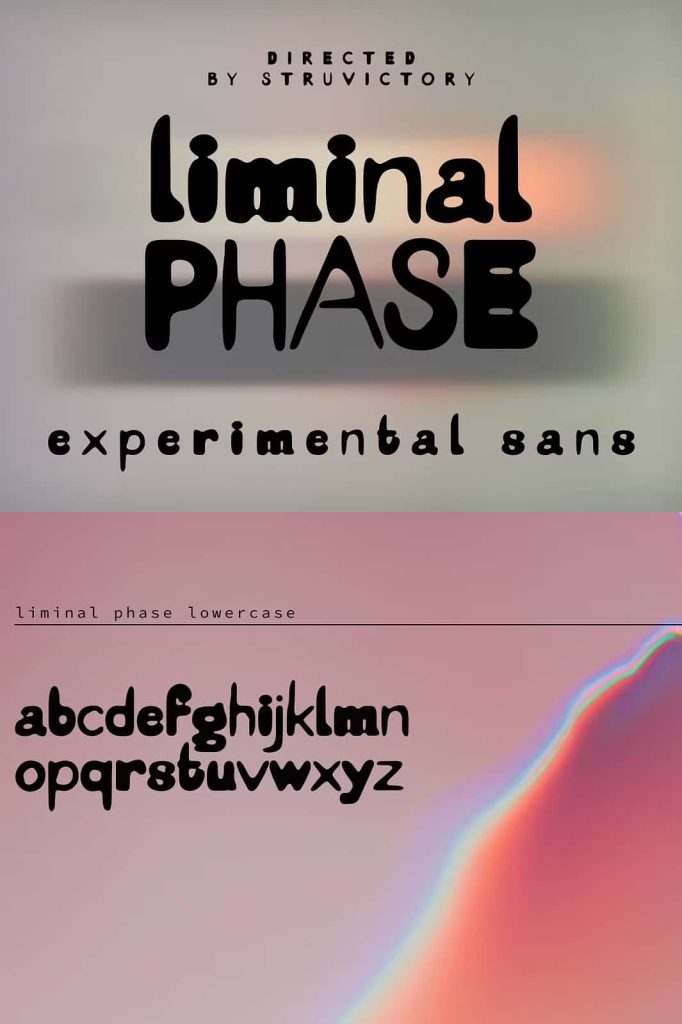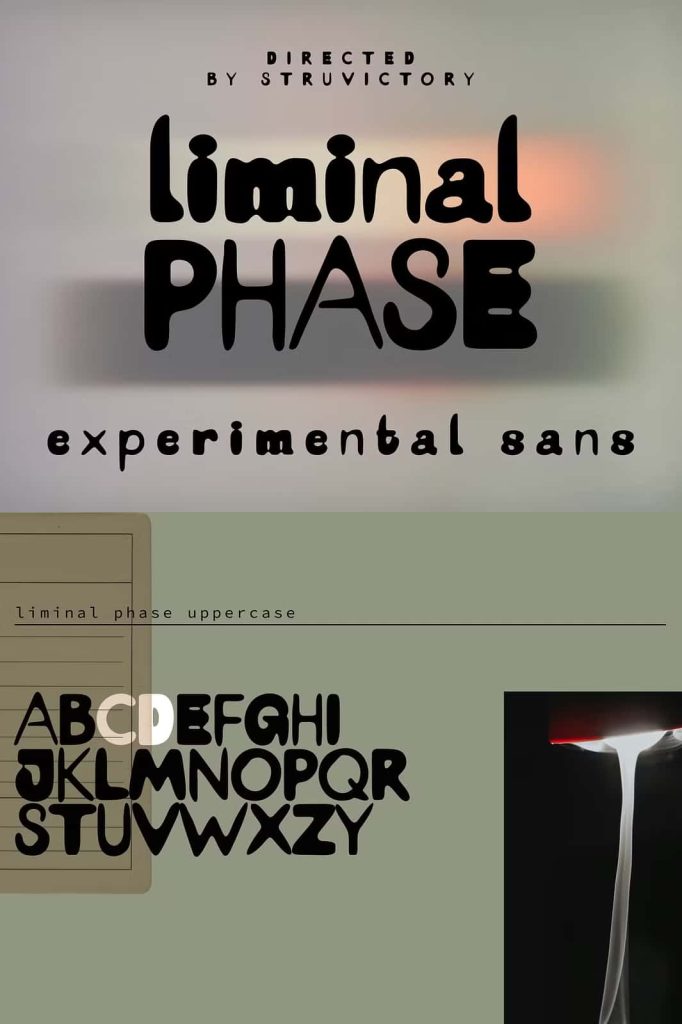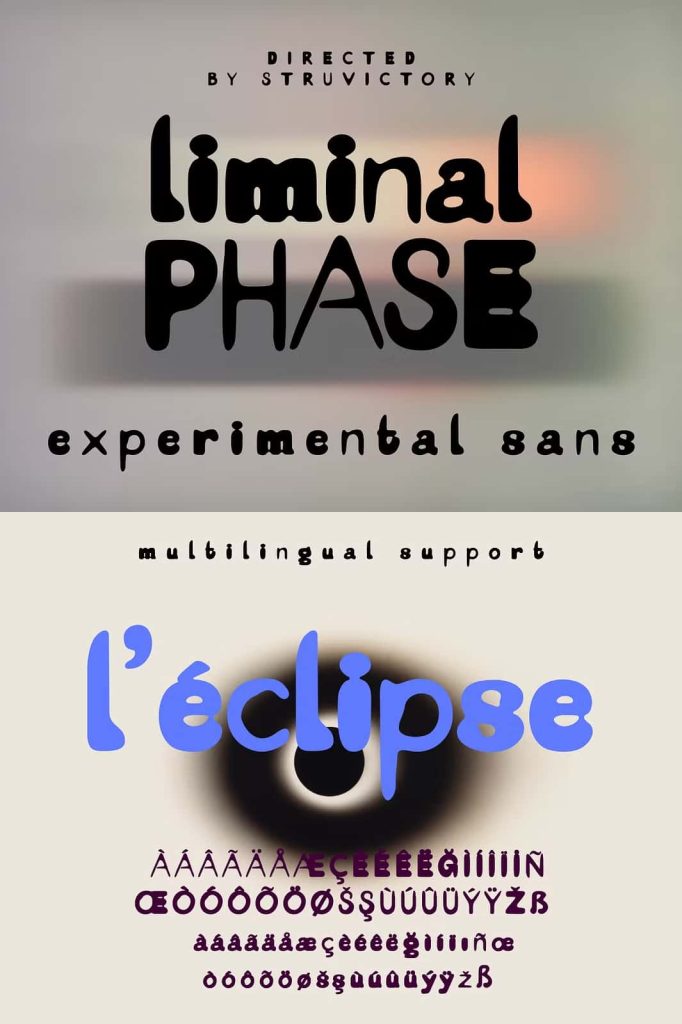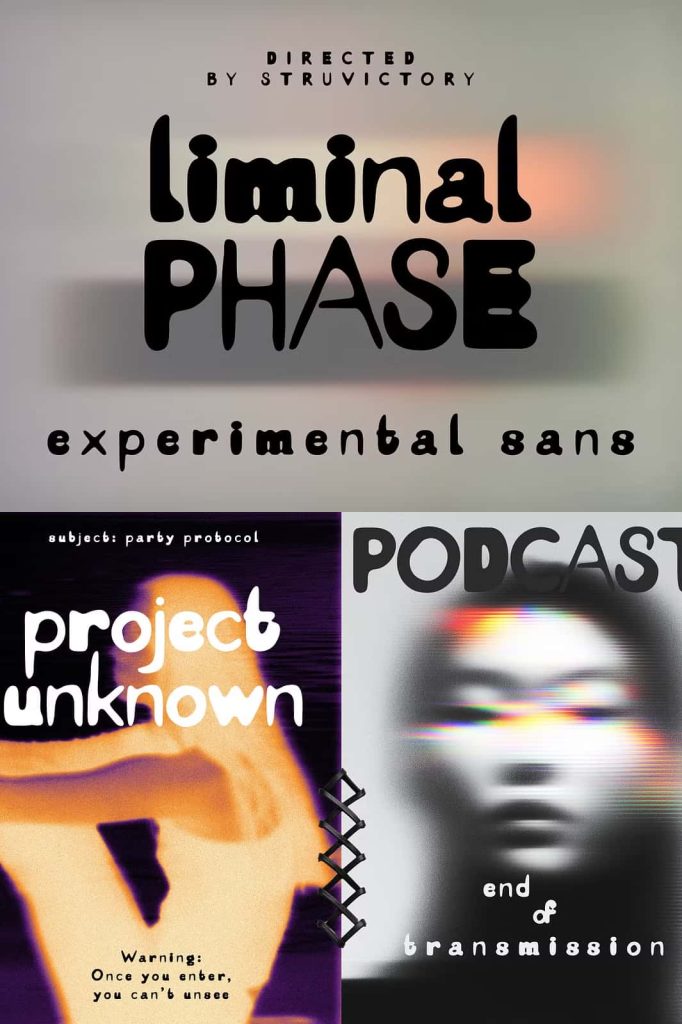
Liminal Phase is an experimental sans serif with letters showing varying degrees of imprint, giving each character a tactile, in-between feel. Its imperfect shapes and subtle irregularities evoke coded secrecy, while varying ink coverage adds raw texture and character. Perfect for podcast covers, edgy branding, and event posters